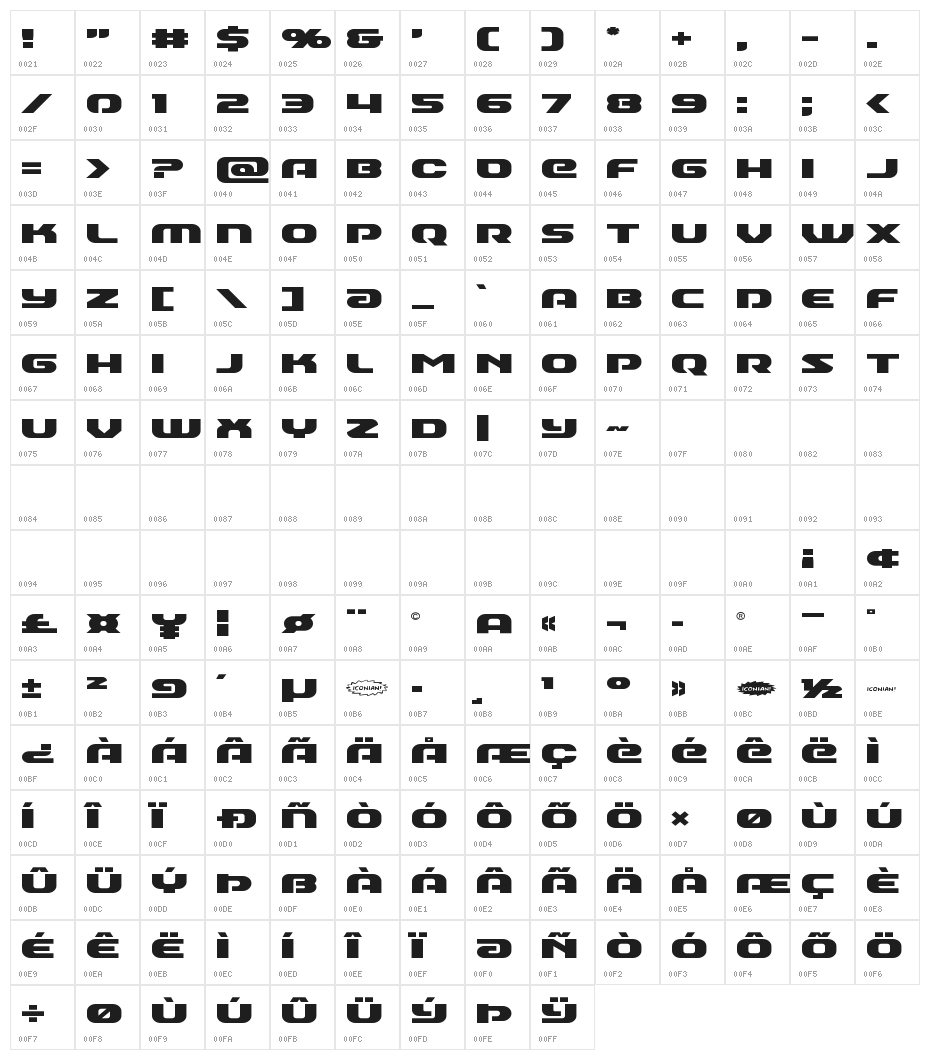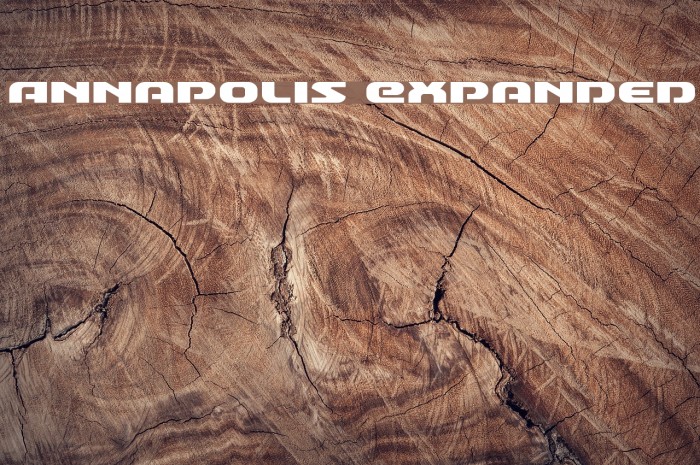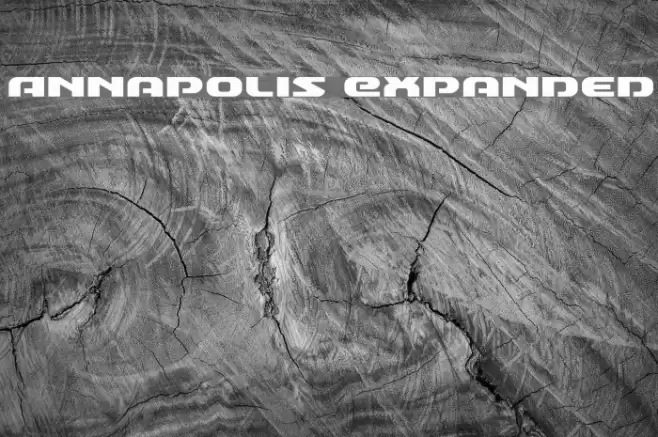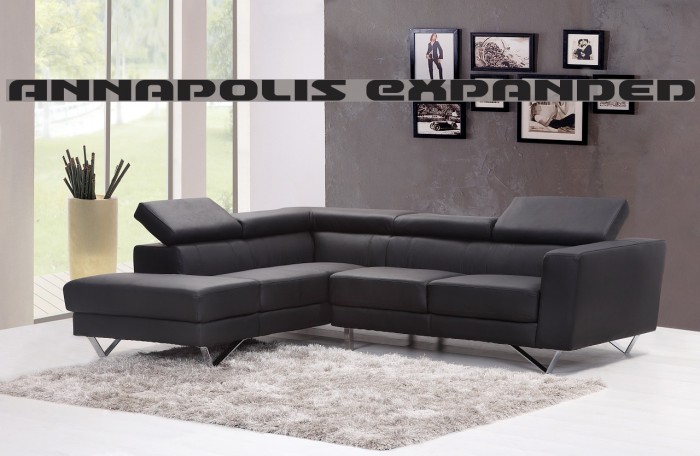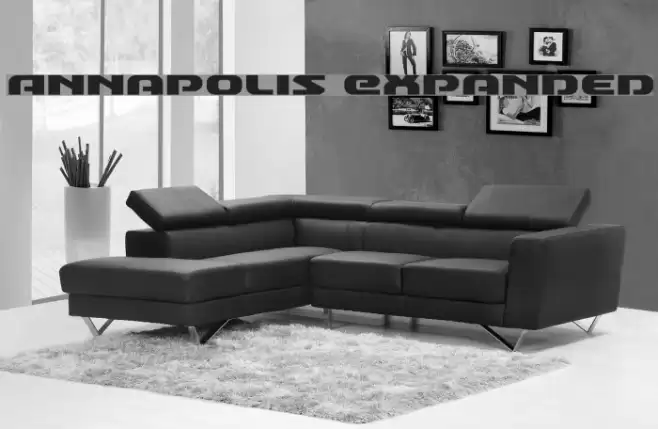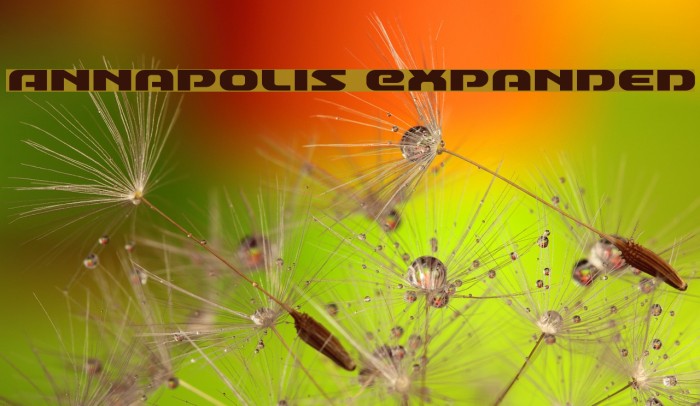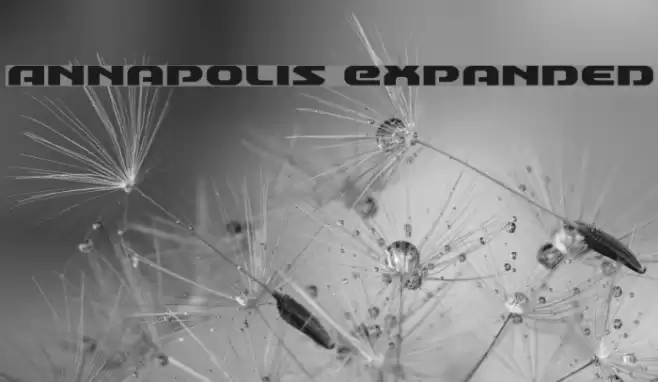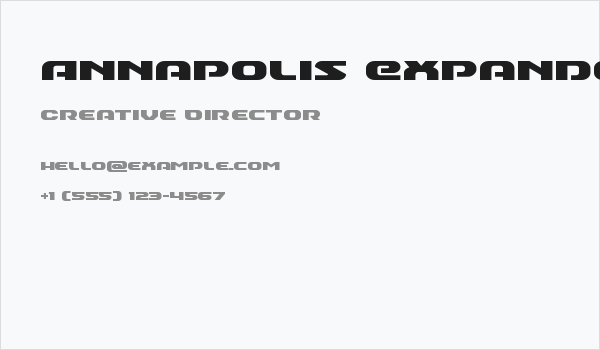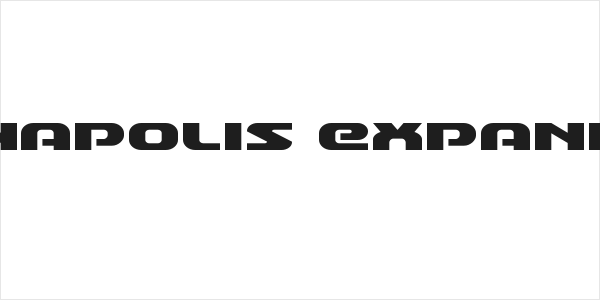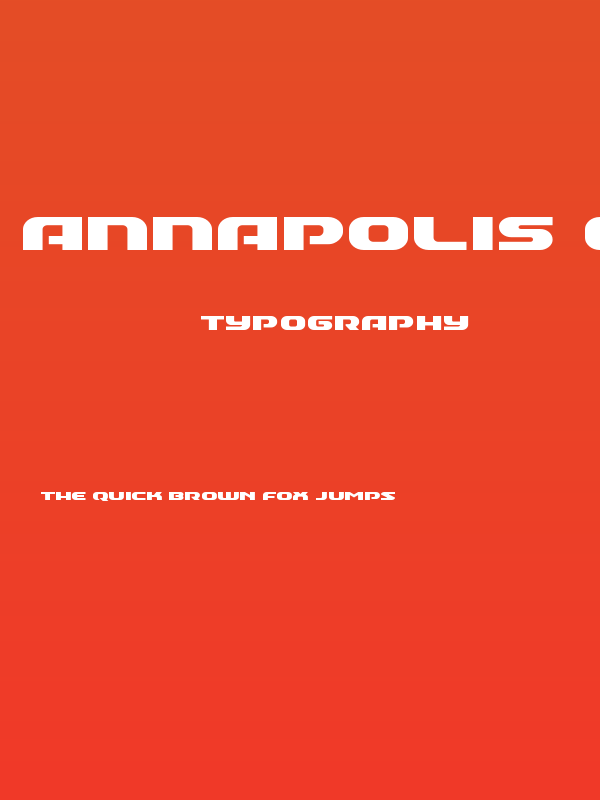
Annapolis Expanded Font
Annapolis Expanded Description
This font features a bold and expanded style with a modern and futuristic aesthetic. The characters are wide and have a strong presence, making them ideal for attention-grabbing headlines and display purposes. The design incorporates geometric shapes with smooth curves and sharp angles, creating a dynamic and impactful look. The uppercase and lowercase letters maintain a consistent weight, while the numerals and special characters are designed to complement the overall style. The font's expanded width and bold weight make it stand out, ensuring readability and visual appeal.
| Proposed Projects | Ideal for headlines, posters, branding, and any project requiring a strong visual impact. |